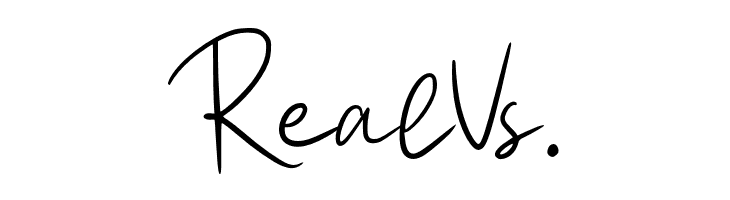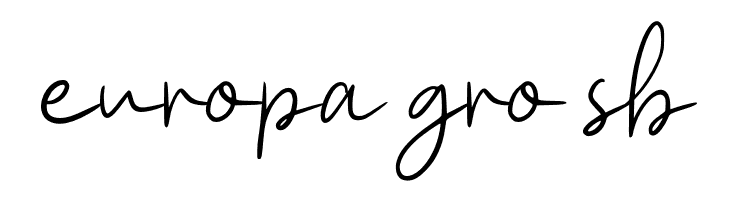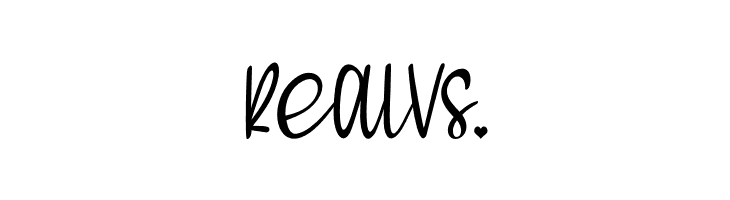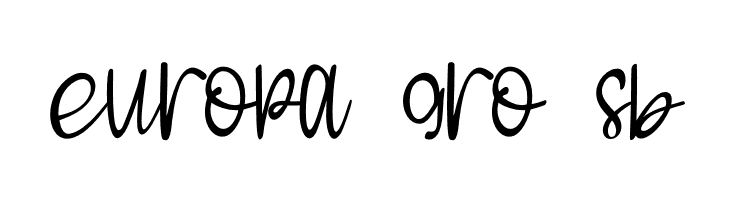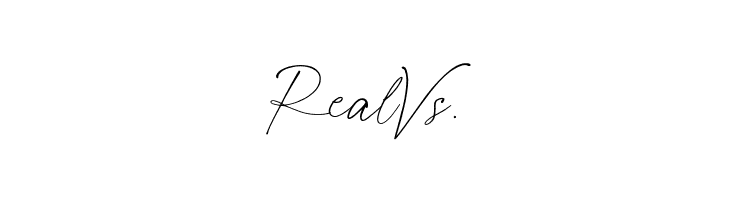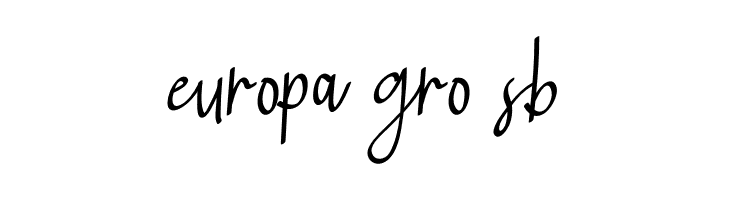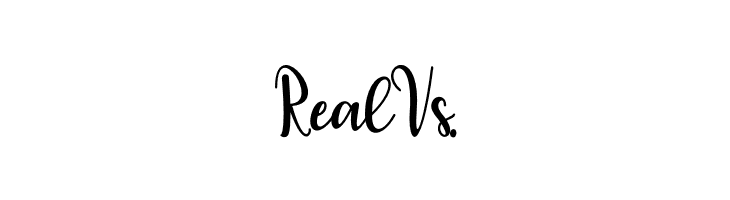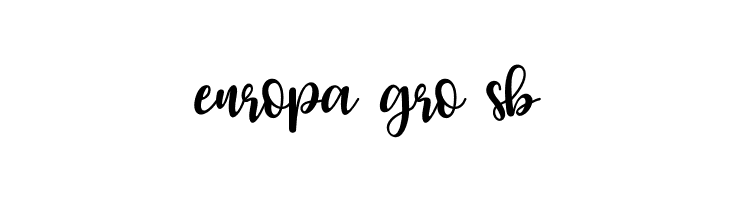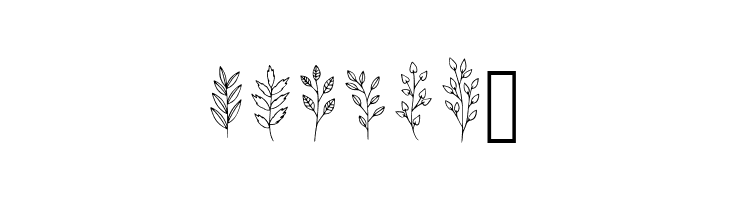
A modern, elegant script font with fluid, handwritten strokes.
A decorative font with intricate leaf and vine patterns for a whimsical, nature-inspired look.
A bold, textured font with a rustic, hand-drawn appearance.
A lively and expressive handwritten font with fluid strokes and dynamic style.
A playful, handwritten font with fluid, interconnected strokes.
A playful and elegant script font with a handwritten feel.
A bold, cursive font with interconnected characters and a modern calligraphic style.
A bold, textured font with a vintage, hand-crafted appearance.
A graceful and elegant script font with flowing cursive letterforms.
A flowing, elegant cursive font with modern and classic elements.
An elegant, flowing cursive font with modern and classic elements.
A playful handwritten font with flowing, cursive-inspired letterforms.
A playful handwritten font with smooth, flowing curves and a whimsical style.
A dynamic, hand-drawn script font with textured, flowing letters.
A bold, oblique sans-serif font with a modern and dynamic style.
A bold, modern sans-serif typeface with strong, uniform strokes.
A bold, oblique font with a modern and dynamic style.
A clean, modern sans-serif font with uniform stroke width and excellent readability.
A modern, oblique sans-serif font with clean lines and balanced spacing.